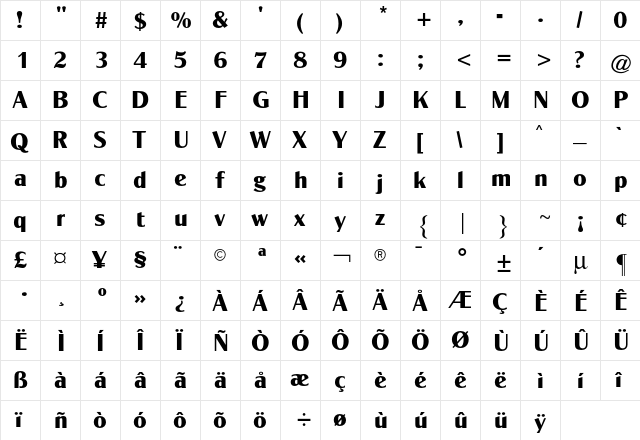
Globe Gothic CG Ultra Regular
Design Context for Globe Gothic CG Ultra Typeface
Globe Gothic CG Ultra takes a clean, functional approach — its unadorned letterforms prioritise legibility and work reliably across screen and print environments.
Font Pairing: Works well alongside a characterful serif or display font that can carry the expressive load while Globe Gothic CG Ultra handles the functional copy.
Pro Tip: Use Globe Gothic CG Ultra for UI labels, navigation, and short-form body copy where clean legibility is the priority.